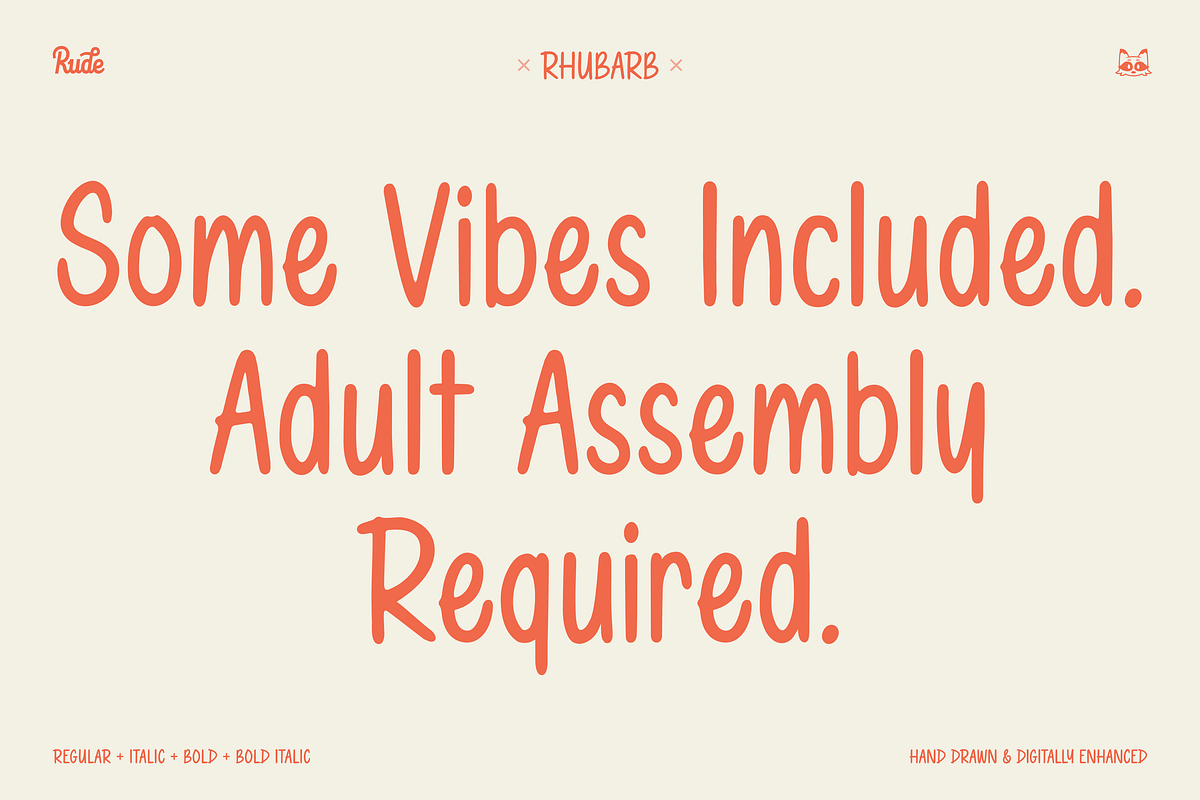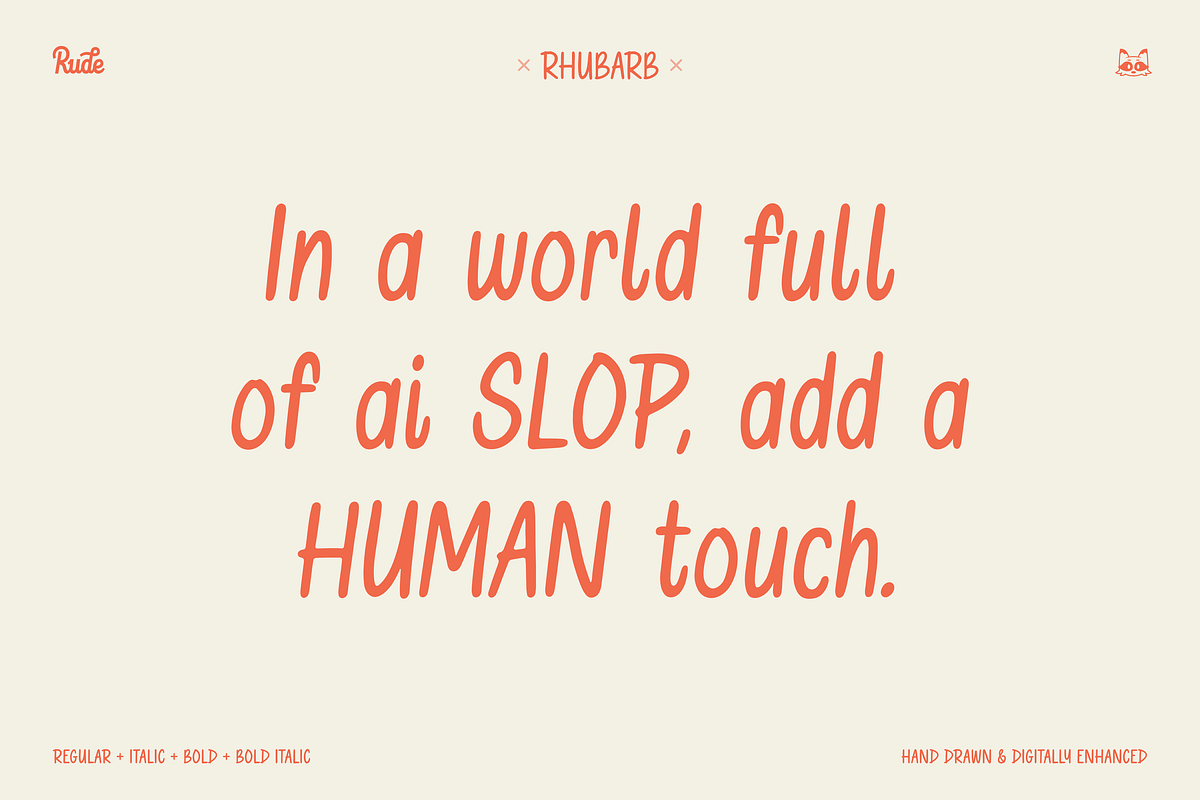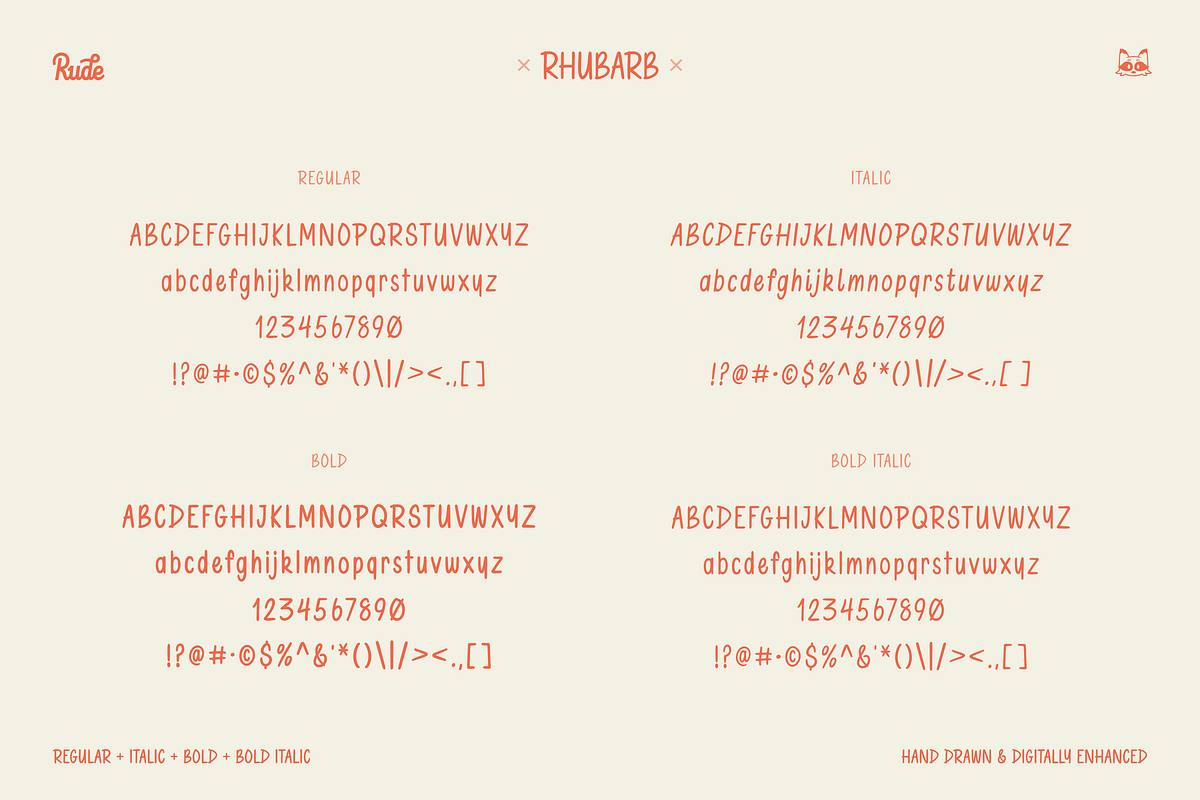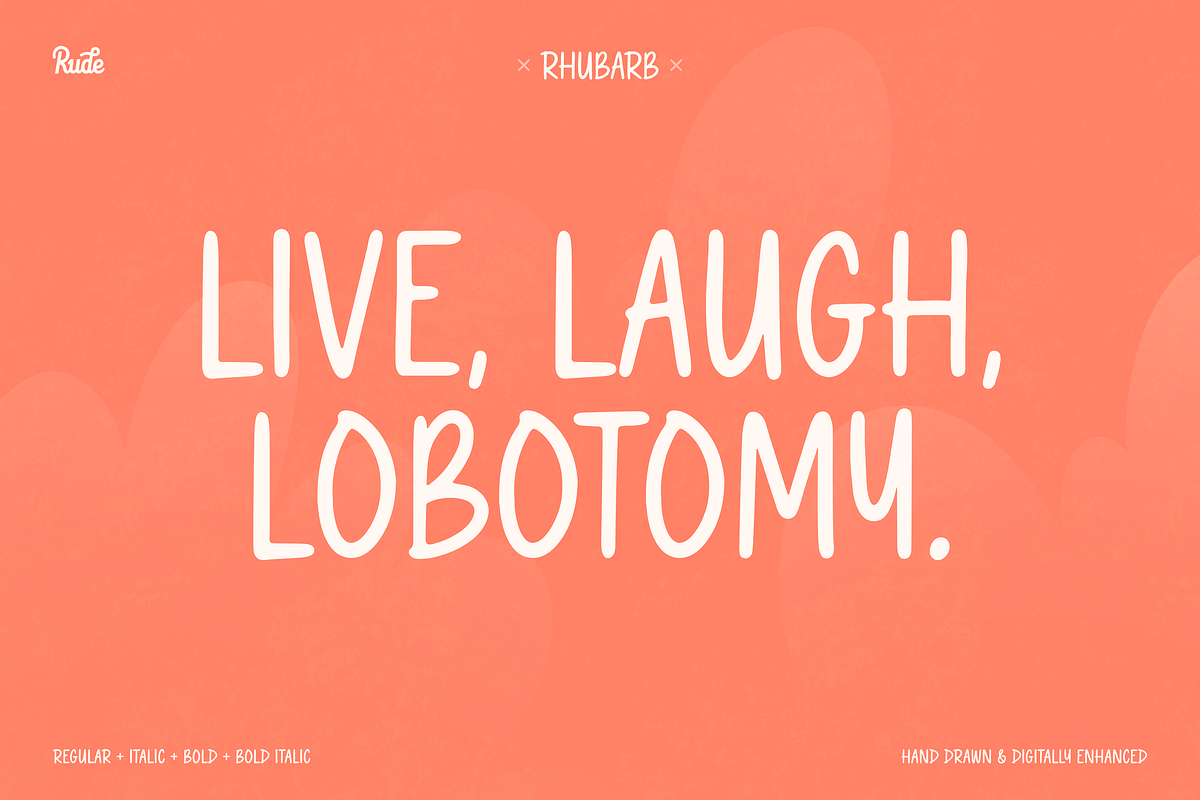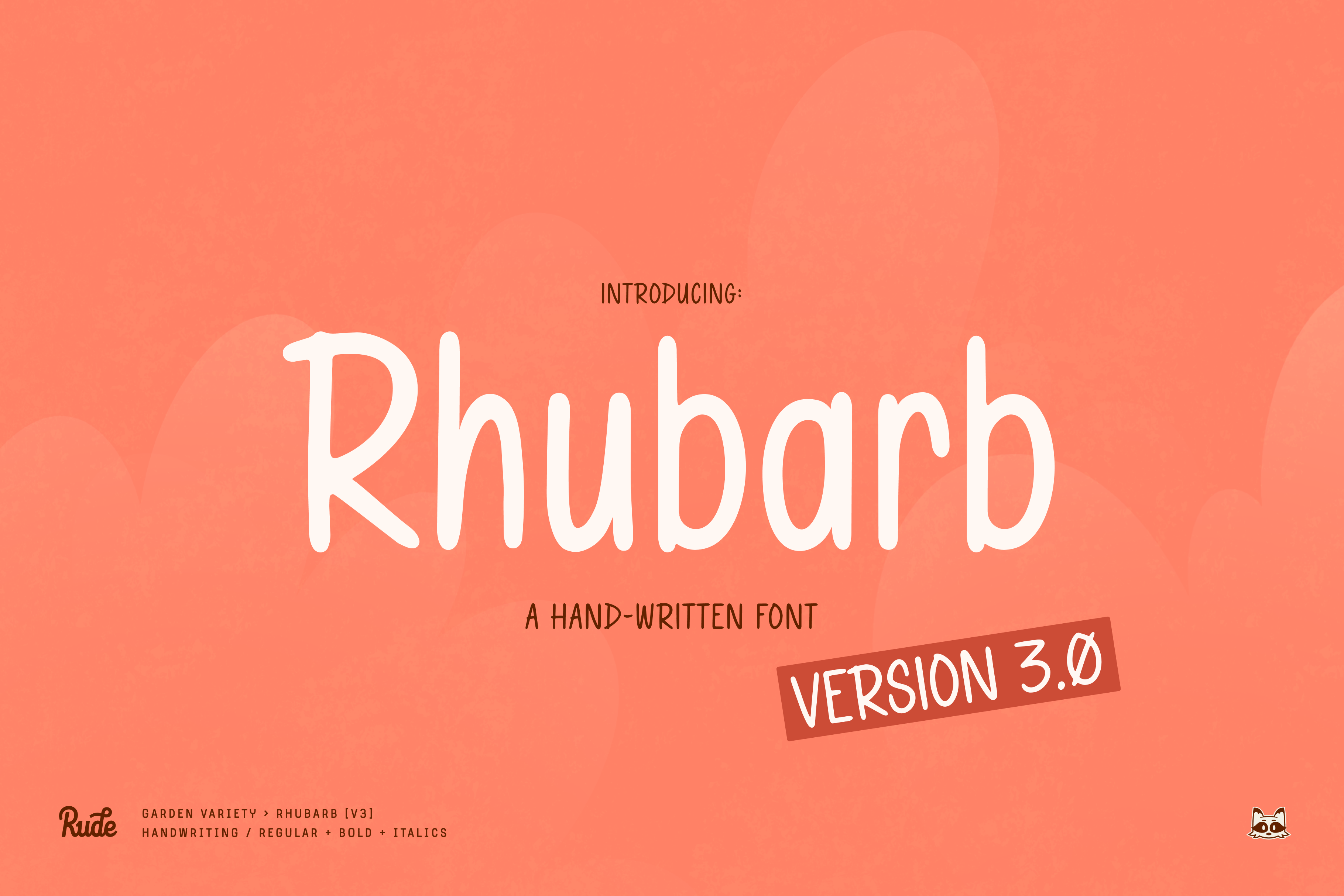
Rhubarb Handwriting Font
Spruce up your designs with Rhubarb and express your fun, light-hearted vibe!
Rhubarb is an optimized, digital version of my own handwriting originally created for use within illustrations. I quickly found more uses for Rhubarb like creating digital mark-ups of layouts and designs, and to describe designs in presentations with a splash of character and personality.
Rhubarb is a full-fledged font with both upper and lower cases! It also comes in four wights, Regular, Italic, Bold, and Bold Italic, 0-9, and a basic set of punctuation/special characters.